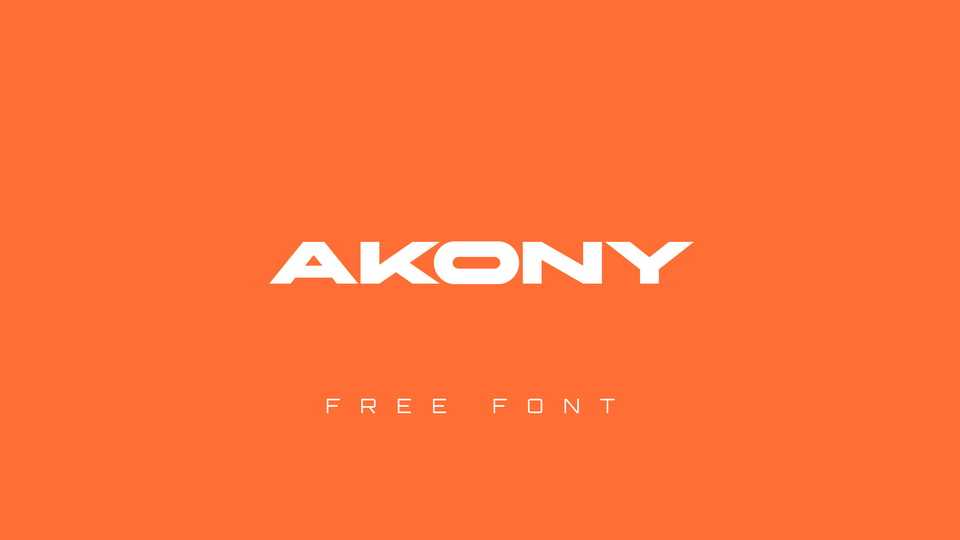
Download Akony font, a bold and strong display typeface that can be used in a variety of graphic design areas, but is best suited for headings and logo designs.
Designer: Vladimir Klenov